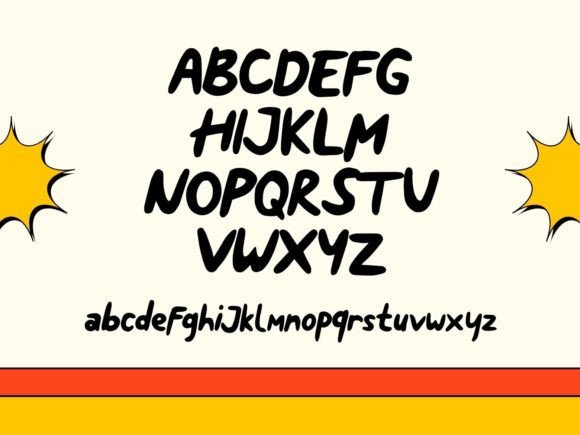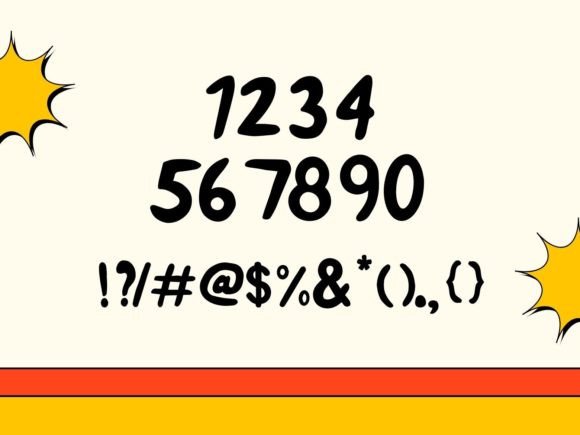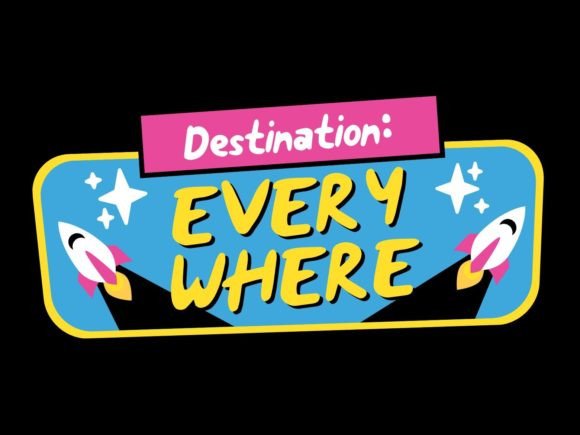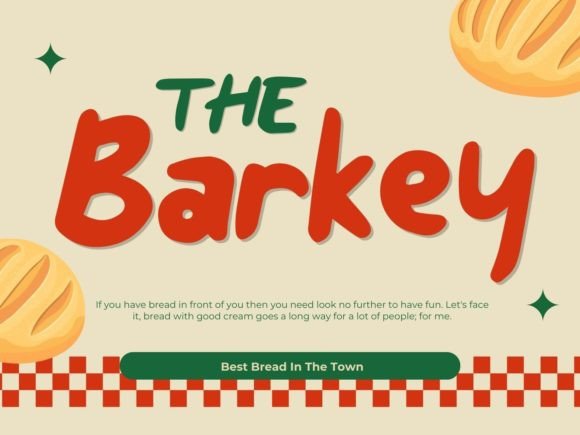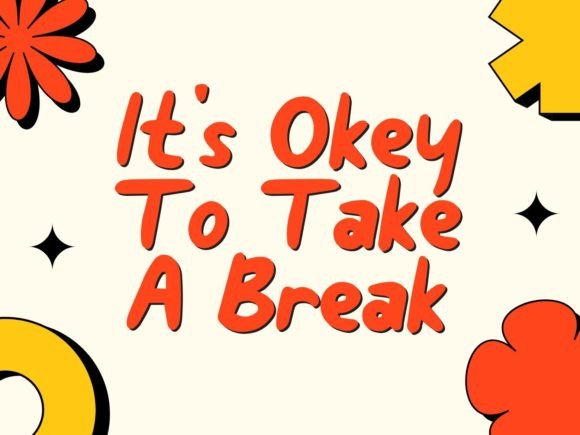
Introduction to Lecy Font
Lecy is a bulky and fun display font that is bold, impactful, and impossible to ignore.
With thick, powerful strokes and striking letterforms, it demands attention and makes a statement Whether used for headlines, posters, or branding, it conveys strength, confidence, and a sense of modernity.